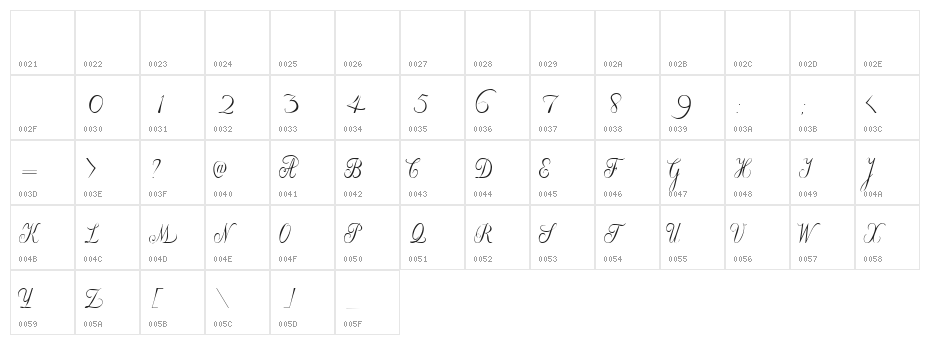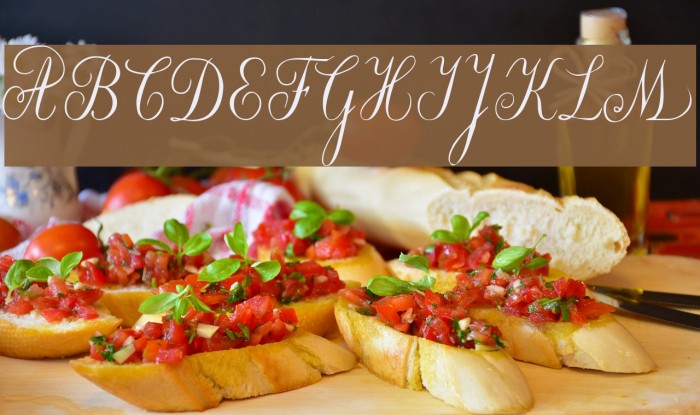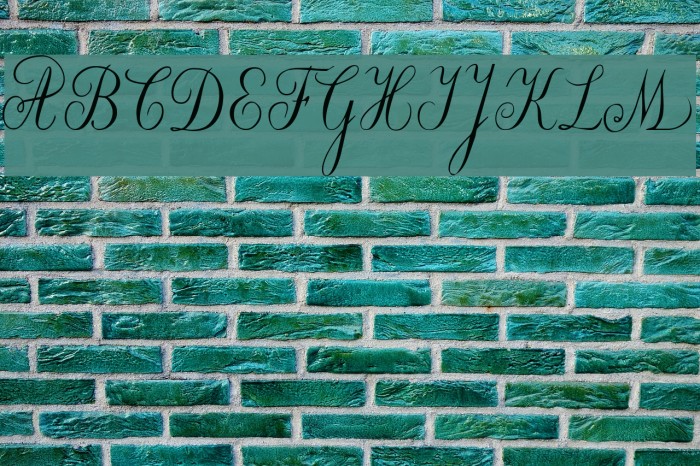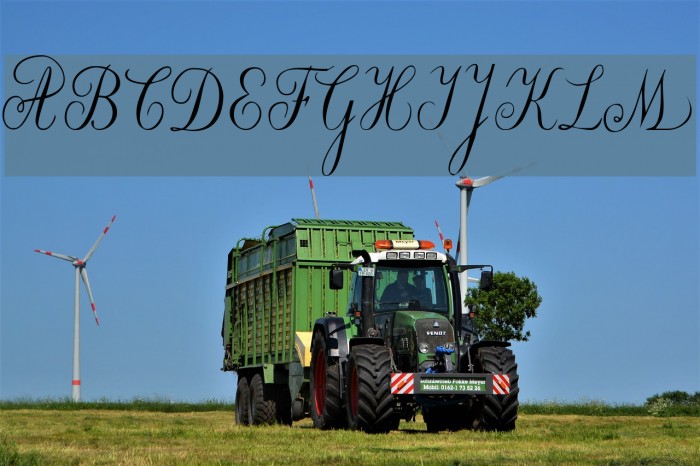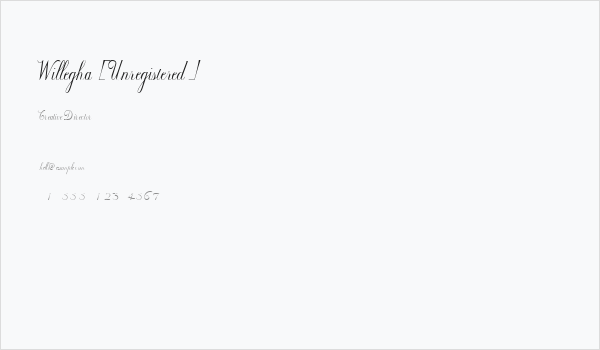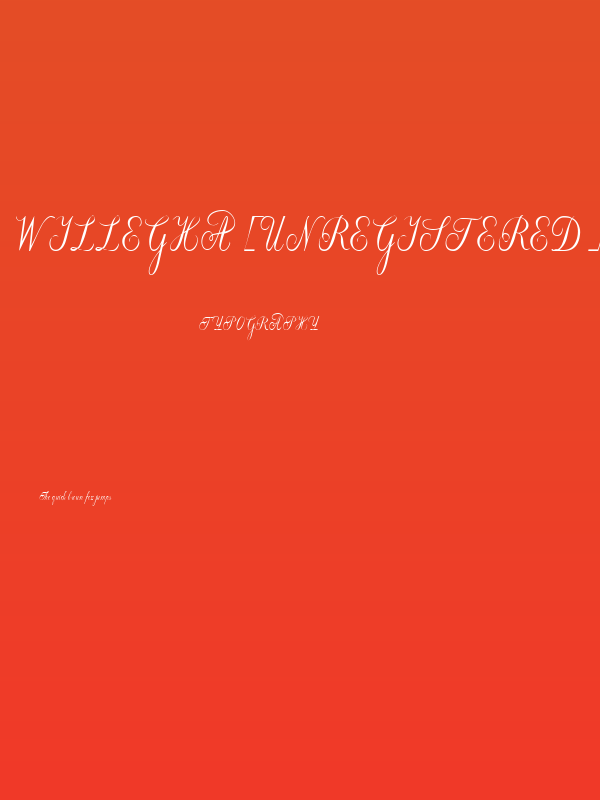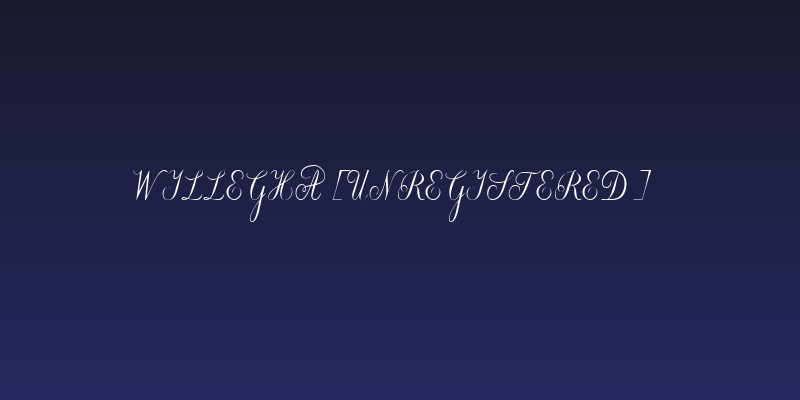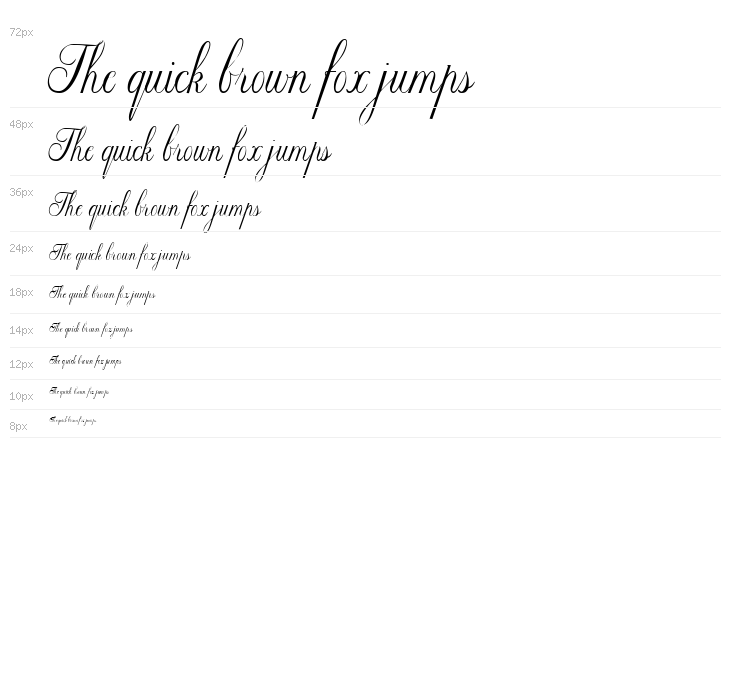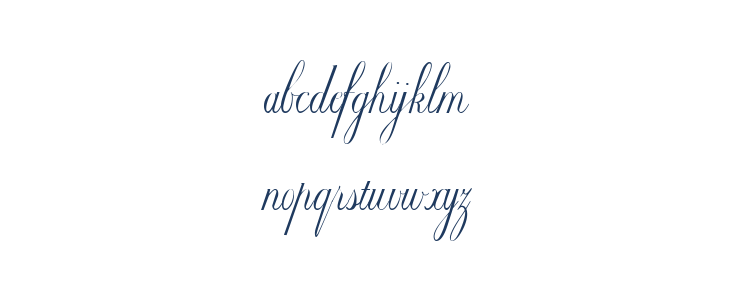
Willegha [Unregistered] Font
Willegha [Unregistered] Description
This elegant script font features a flowing, cursive style with high contrast between thick and thin strokes. The uppercase letters are ornate, with sweeping curves and flourishes that give a sense of sophistication and grace. The lowercase letters are more restrained but maintain the same fluidity and elegance. The numerals are consistent with the overall style, featuring gentle curves and a refined appearance. This font is ideal for projects that require a touch of class and elegance, such as wedding invitations, formal event programs, or luxury branding.
| Proposed Projects | Ideal for wedding invitations, formal event programs, luxury branding, and elegant stationery. |